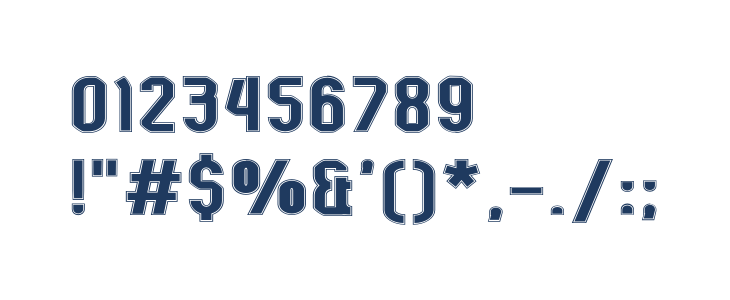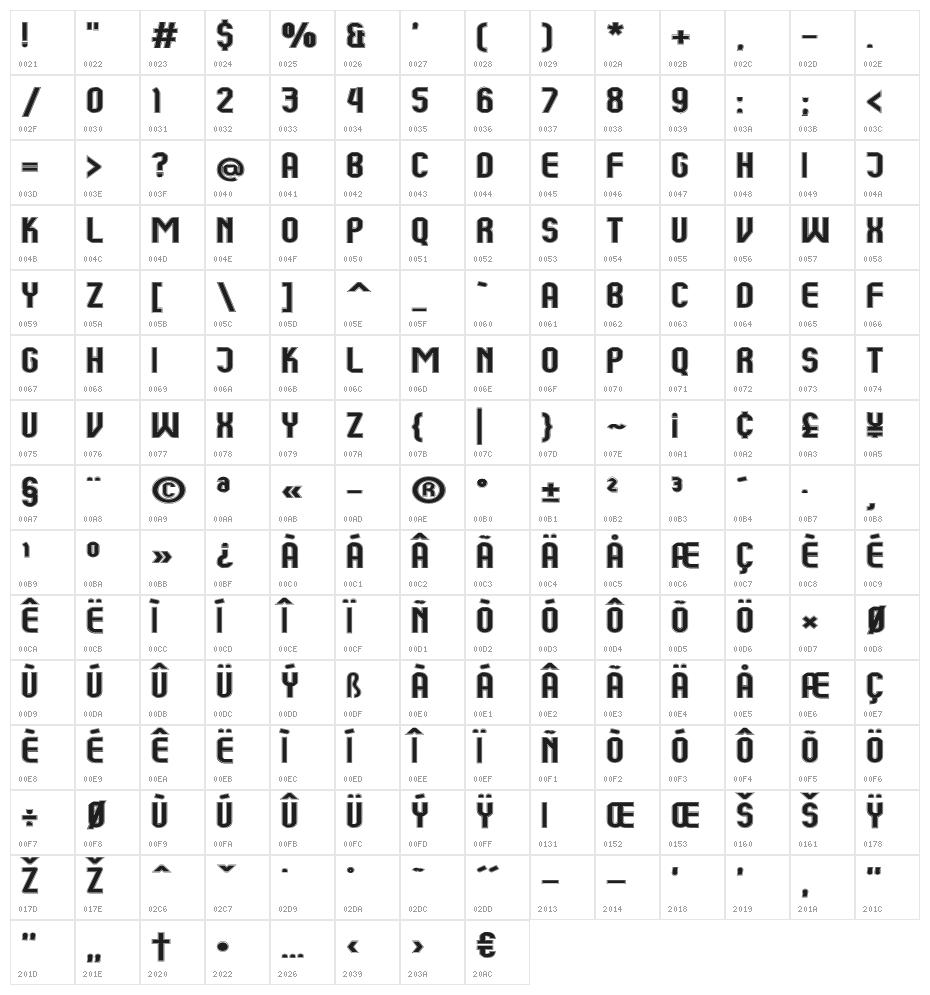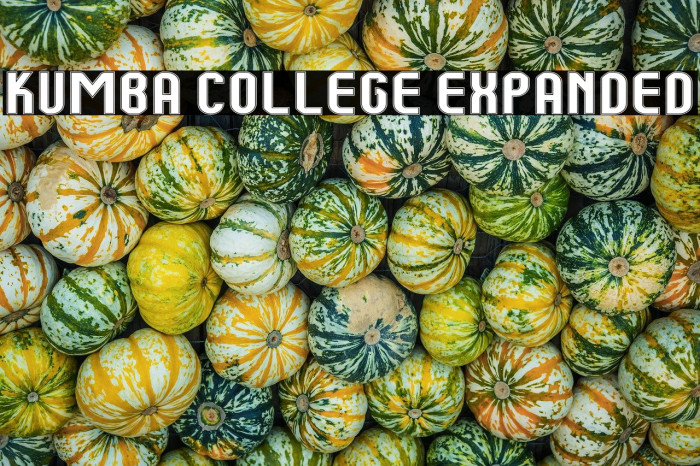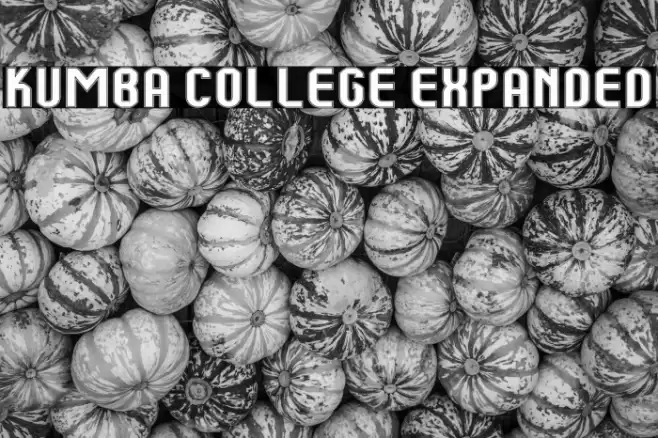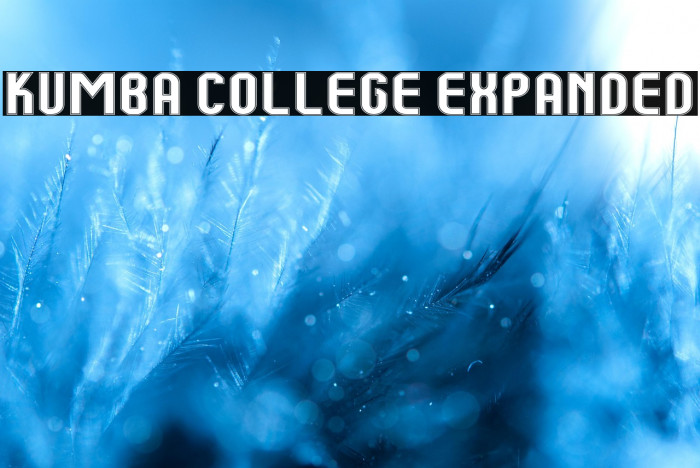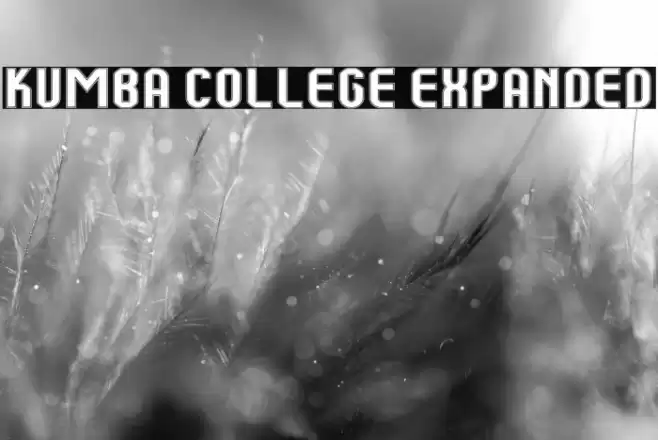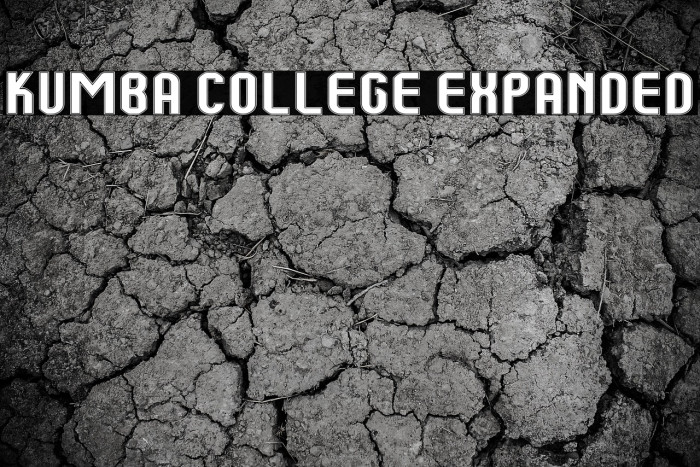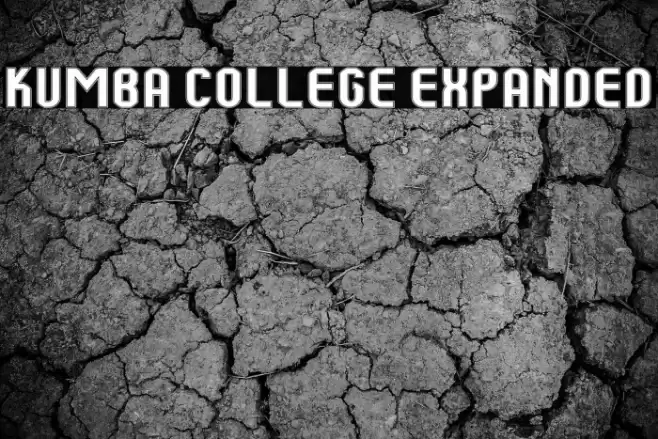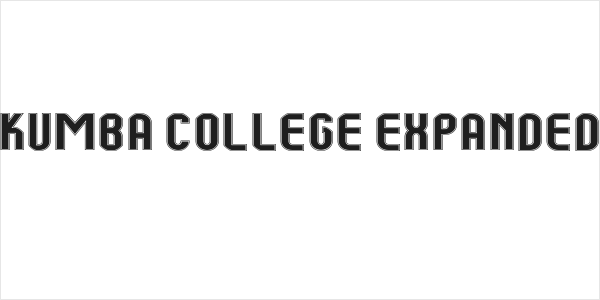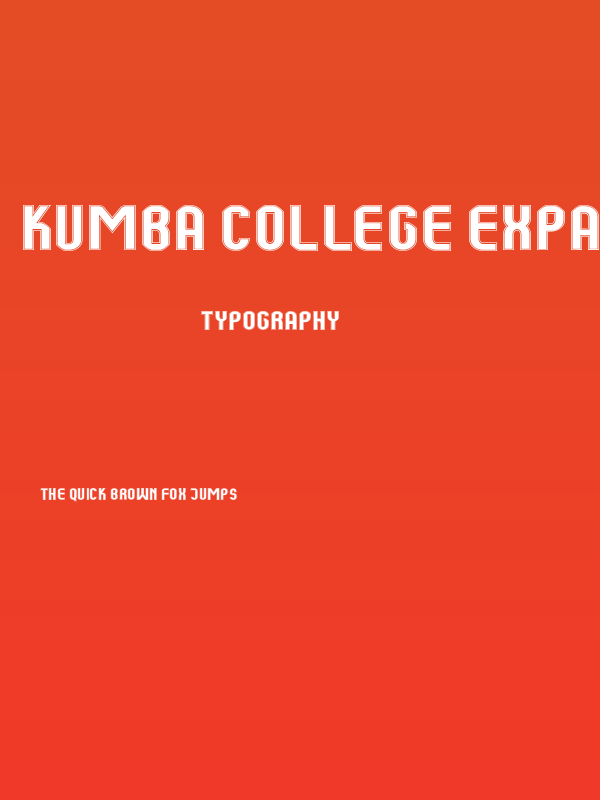
Kumba College Expanded Font
Kumba College Expanded Description
This font features a bold, collegiate style with a strong presence. The characters are outlined, giving them a distinctive, layered appearance that adds depth and dimension. The uppercase letters are uniform in height, with sharp angles and clean lines that convey a sense of strength and stability. The numbers and special characters maintain this bold, outlined style, ensuring consistency across all glyphs. The font's expanded width allows for excellent readability, making it suitable for attention-grabbing headlines or titles. Its design is reminiscent of traditional varsity or sports team lettering, making it ideal for projects that require a bold and impactful typeface.
| Proposed Projects | Ideal for sports team branding, event posters, school merchandise, and any project requiring a bold, impactful typeface. |